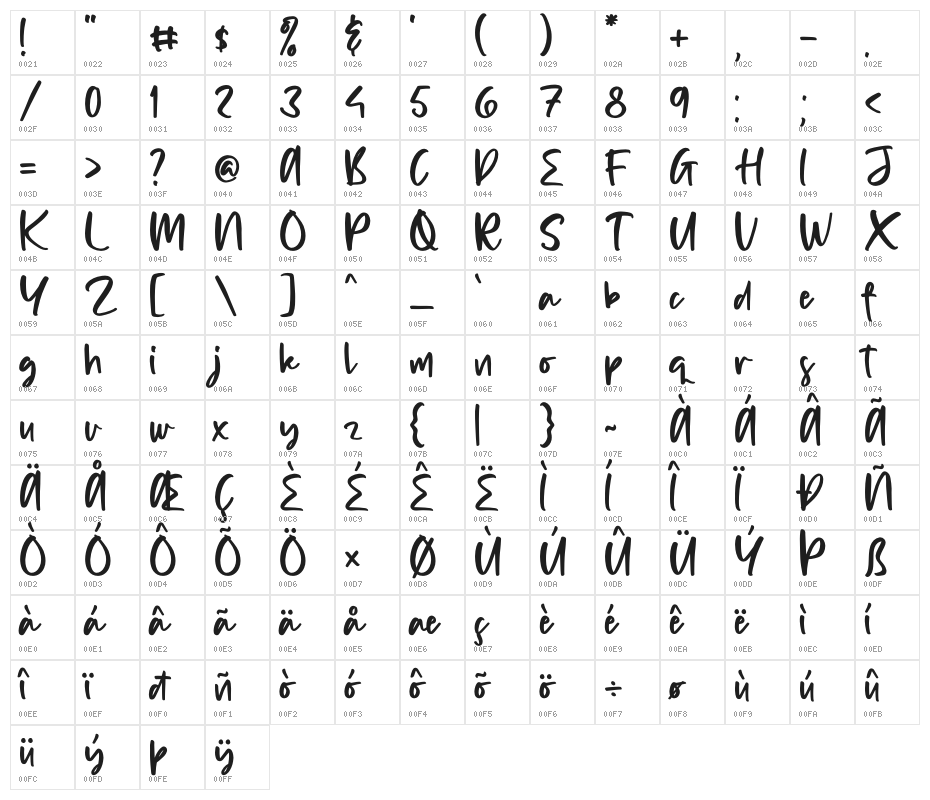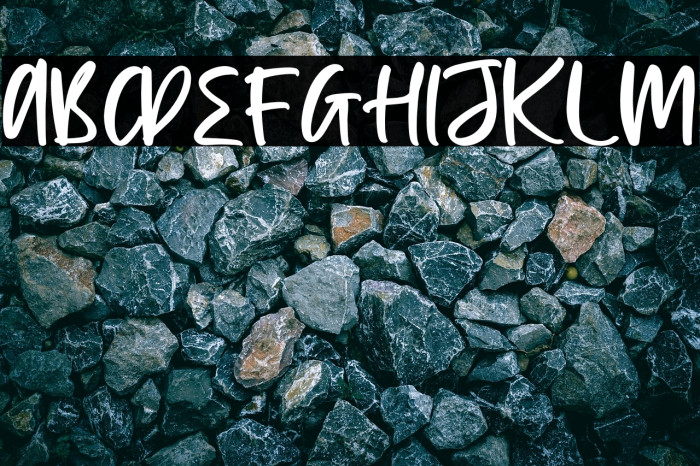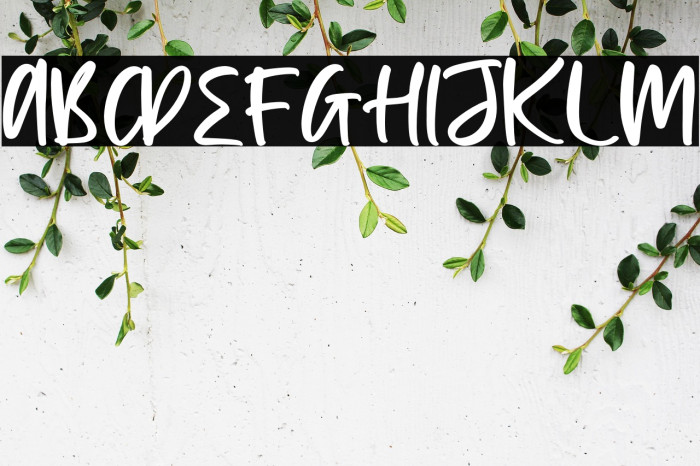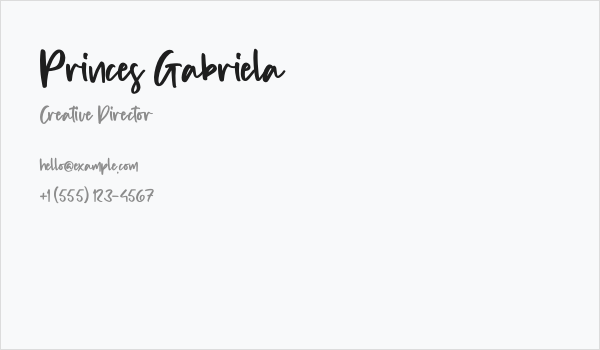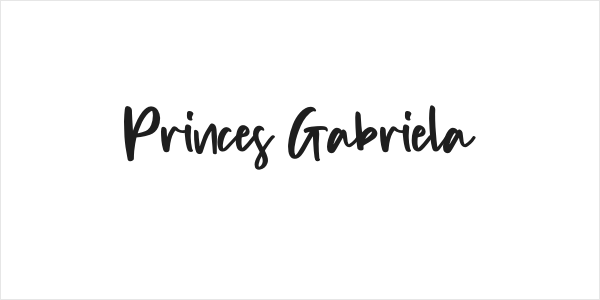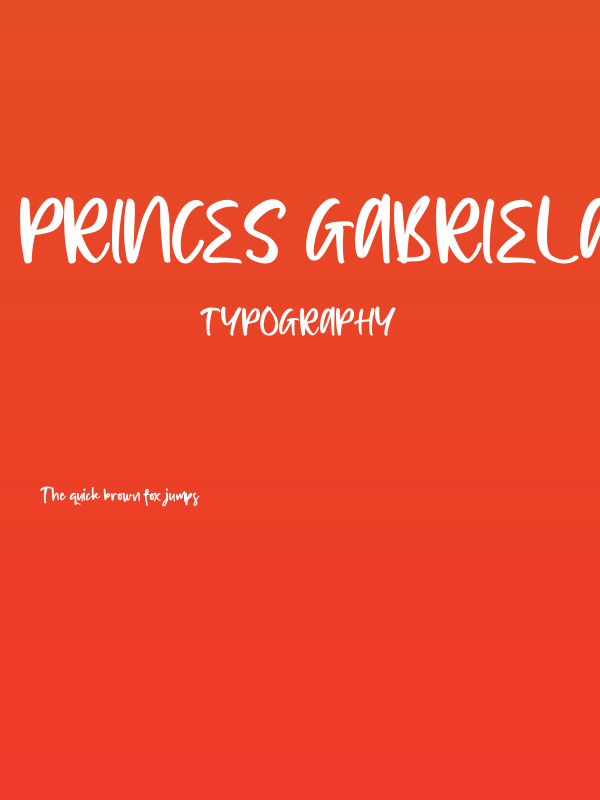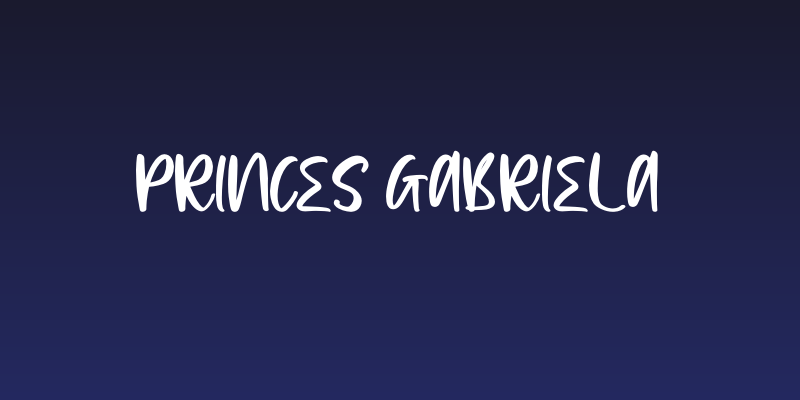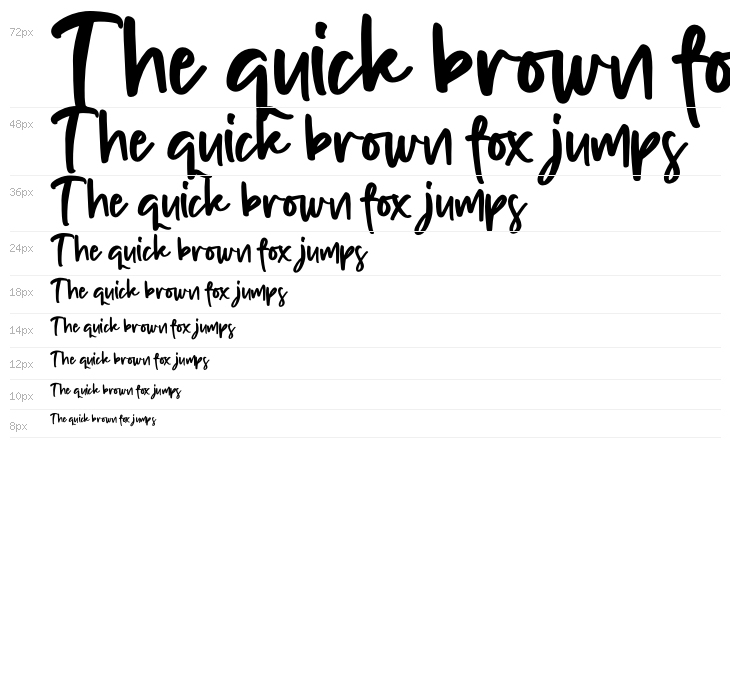
Princes Gabriela Font
Princes Gabriela Description
This font features a playful and energetic handwritten style, characterized by its bold and flowing strokes. The letters are slightly slanted, giving a dynamic and informal appearance. The uppercase and lowercase letters maintain a consistent style, with rounded edges and a casual flair. Numbers and special characters are crafted with the same lively spirit, making them stand out. The overall design is cohesive, with a touch of whimsy that adds personality to any text.
| Use Case | Logos, Headlines, Informal Text |
| Proposed Projects | Ideal for greeting cards, playful branding, children's books, and social media graphics. |